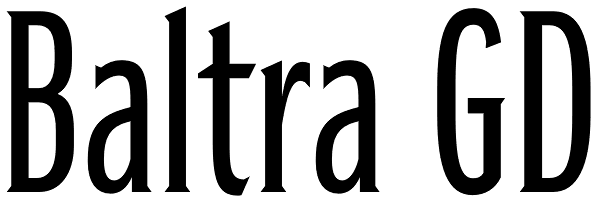
Baltra
After researching the type styles contemporary graphic designers have been using over the past few years, I noticed a consistent use of Copperplate Gothic, and its derivative designs, for various corporate advertising campaigns. That level of usage...